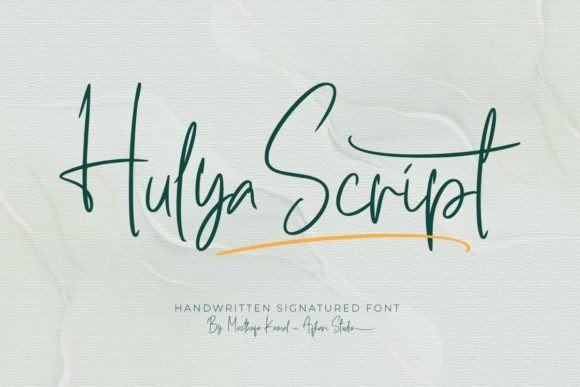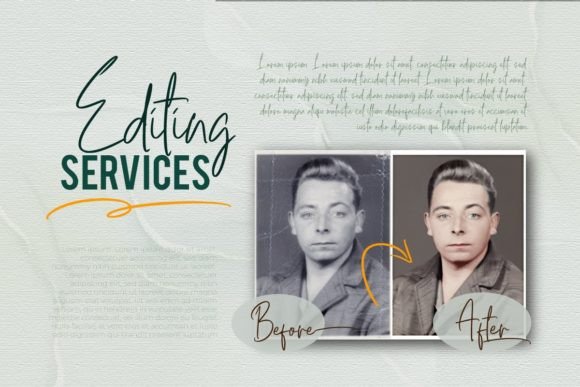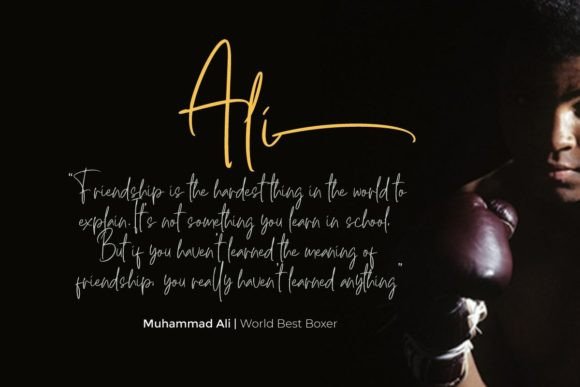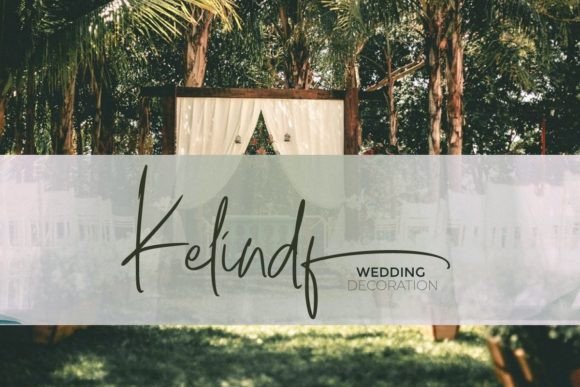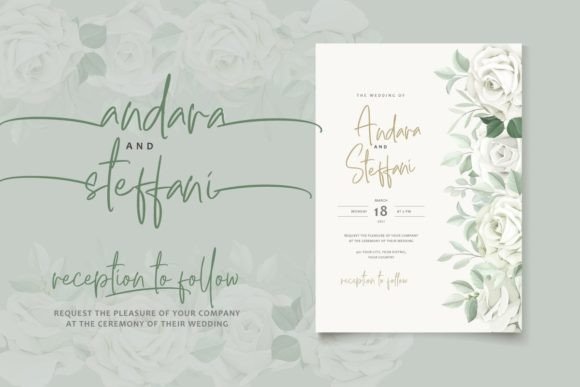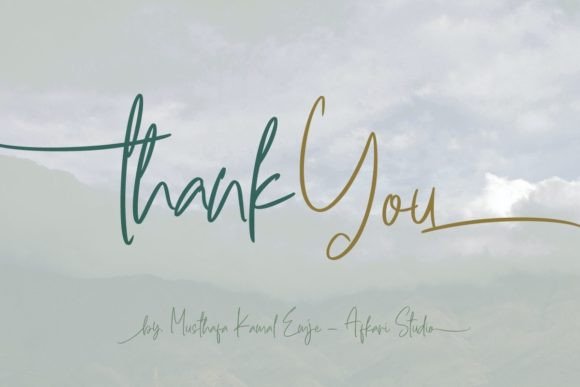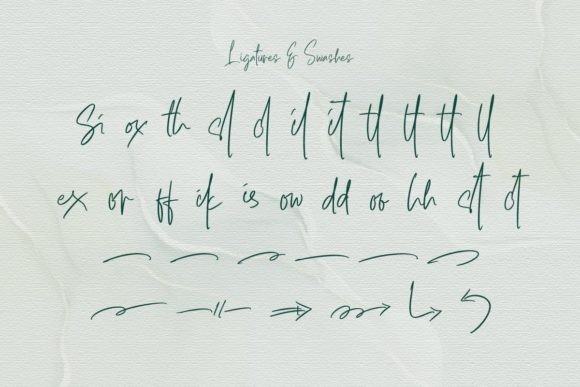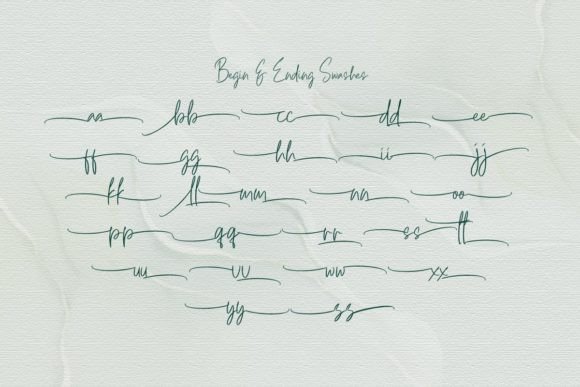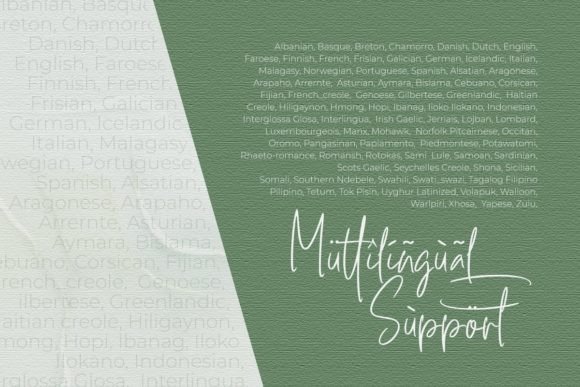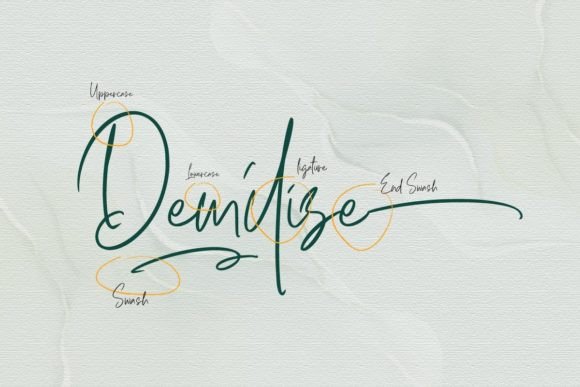
Hulya Script Font
About Hulya Script Font
Welcome to the enchanting world of Hulya Script, a magical script font crafted with a touch of elegance. This font is designed to elevate your creative ideas, whether you’re searching for fonts for Instagram, calligraphy scripts for DIY projects, or any endeavor that demands a true piece of art.
Hulya Script stands out with its magical and carefully crafted script design. Each stroke exudes elegance, making this font a perfect choice for projects where sophistication and beauty are paramount. Whether you’re creating social media graphics, crafting DIY projects, or working on any creative venture, Hulya Script transforms your ideas into true works of art.
The magic of Hulya Script lies in its versatility and ability to add a touch of elegance to diverse design contexts. Its calligraphy-inspired style brings a sense of refinement, making it suitable for a wide range of applications, from social media posts to personalized DIY projects.
Consider Hulya Script not just as a font but as a creative wand that turns your ideas into magical pieces of art. Its carefully crafted elegance sets it apart, making it a valuable asset for anyone who appreciates the beauty of well-designed script fonts. Let Hulya Script be the font that adds a touch of magic and sophistication to your creative endeavors.